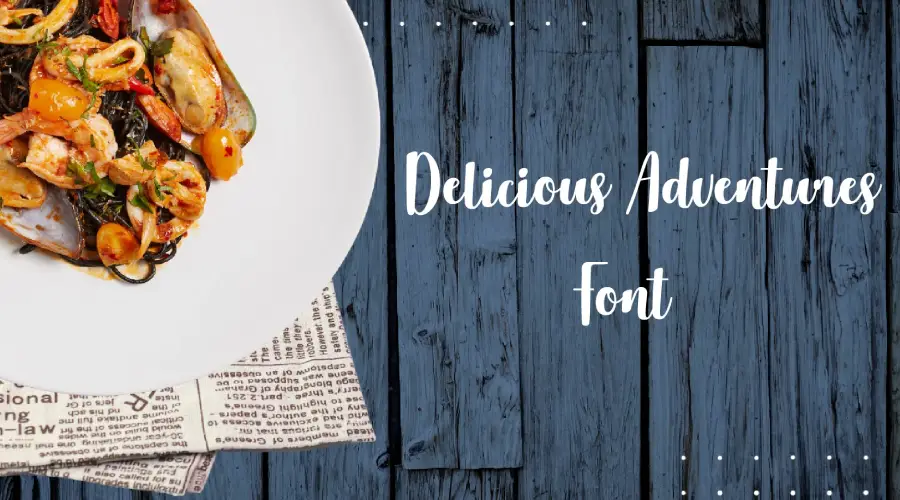
Delicious Adventures Font
Delicious Adventures Font is a superb Brush and Script typeface. Cat.B created and shared the font. All uppercase and lowercase letters and a few special characters are included in the font. Delicious Adventures is solely available for personal use. According to me, the font looks better in bold than thin texture, although it can be used in thin form as well.
Delicious Adventures can be used to create unique designs, covers, shop and store names, and logos. Delicious Adventures is also suitable for branding projects, homeware designs, product packaging, and classy text overlays on any background image. Delicious Adventures is the ideal typeface for all of your humorous projects.
Delicious Adventures font is a beautiful and elegant script font that is perfect for designing logos, invitations, and other creative projects. The font has a unique and playful style that is sure to catch the eye of anyone who sees it. With its OpenType features, stylistic alternates, initial and final forms, and ligatures, Delicious Adventures font offers a wide range of design possibilities. So, what are you waiting for? Download it now and add it to your collection.